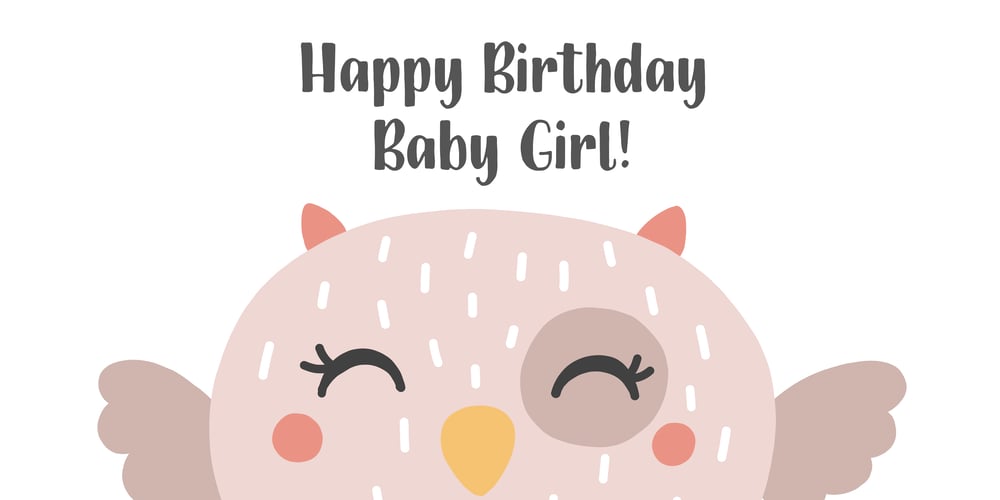
Barila
Barila font
Barila Font Family was designed by Irina Vascovet and published by Irina Vascovet. Barila contains 1 styles and family package options. Barila is a fun hand written font that is perfect for projects like games, apps, books, holiday cards, and nursery art projects. It is very readable while keeping it’s fun and whimsical personality. Multilingual characters are included for international customers as well.